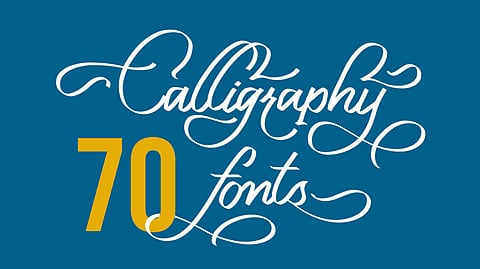
70 Free Calligraphy Fonts Every Designer Should Use!
Add character and emotion to your designs with these amazing calligraphy fonts and grab your audience's eye.
Calligraphy is a very essential part when it comes to designing and finding the right font for your designs, but identifying the correct one can be a difficult and arduous task. Calligraphy fonts have been around for centuries now and can bring handcrafted texture to your designs with evincing elegance and charm.
Calligraphy fonts can be used for both personal and commercial projects. It comes in a range of styles depending on what kind of design project you are working on but uses them sparingly so it doesn't overpower your designs.
There are plenty of calligraphy fonts online to pick but it is imperative to finding the one that fits with your design to give your work a unique and organic feel. To help you out we have picked the best calligraphy fonts for you which come in a variety of styles and completely free!
01. Cartel Deux Handwriting Typeface
The Cartel Deux typeface series are relatively new to the scene, and come in about 5 styles. You can use this font flawlessly for your personal and commercial projects like logo, shirt design etc.